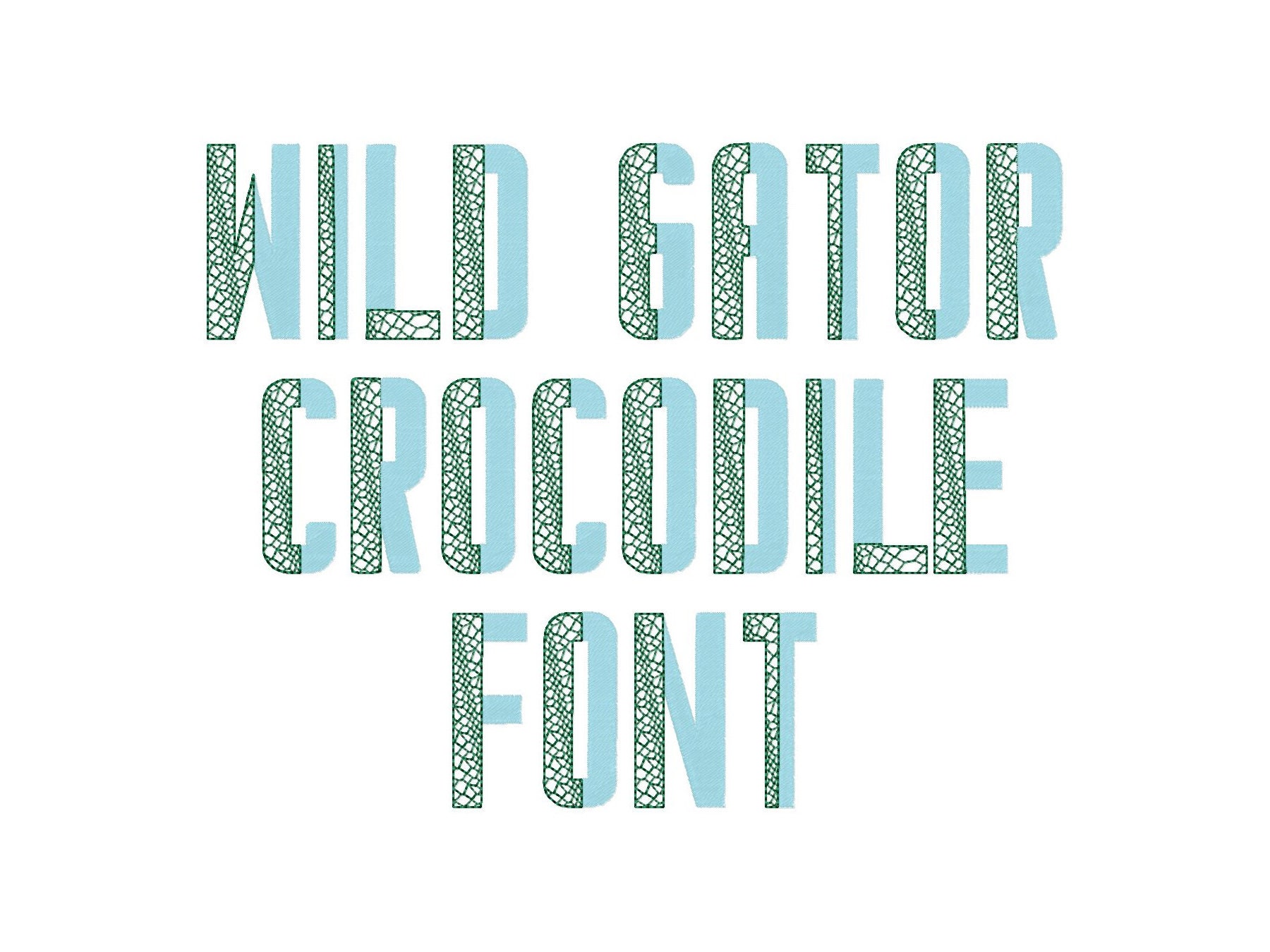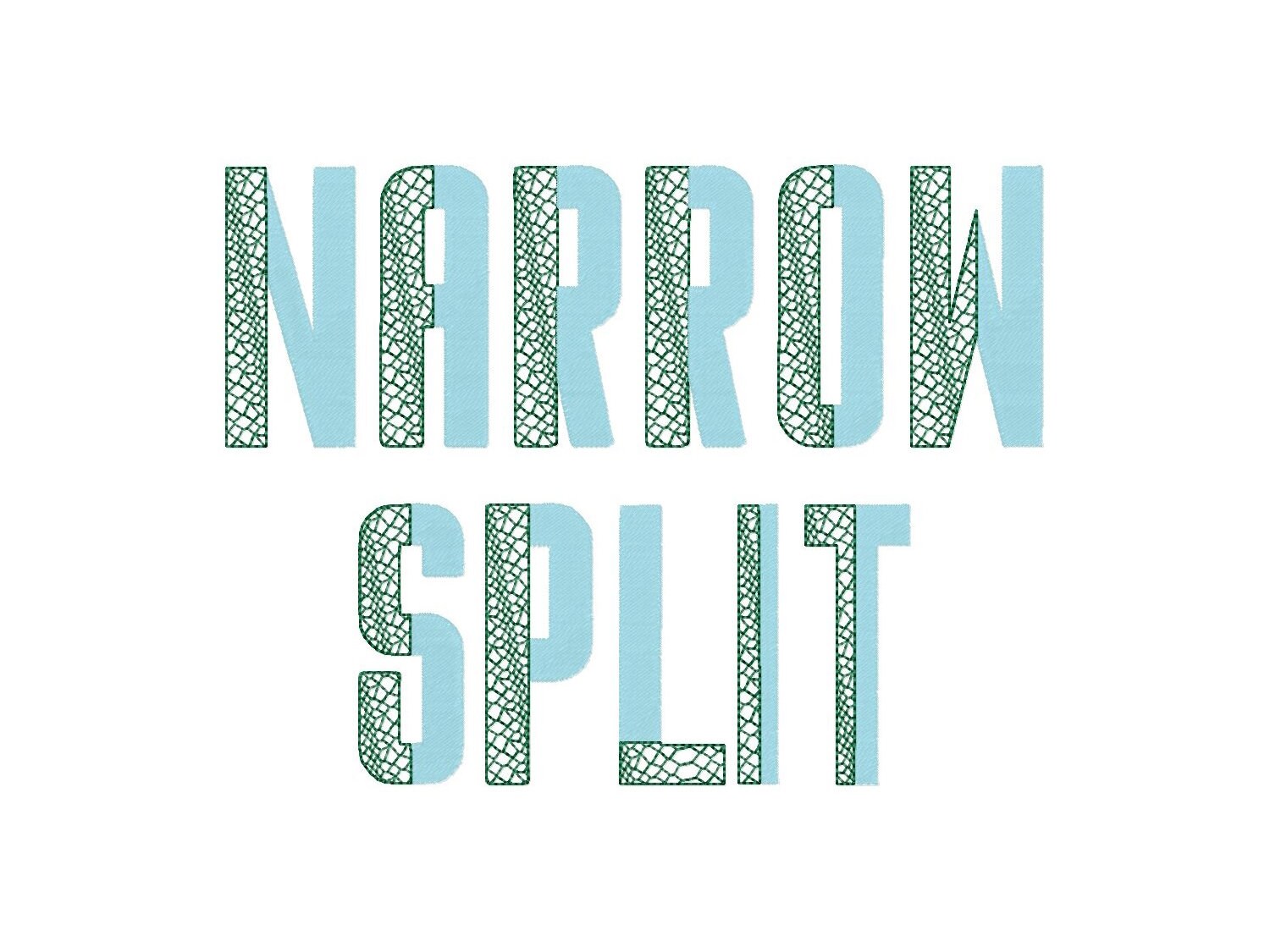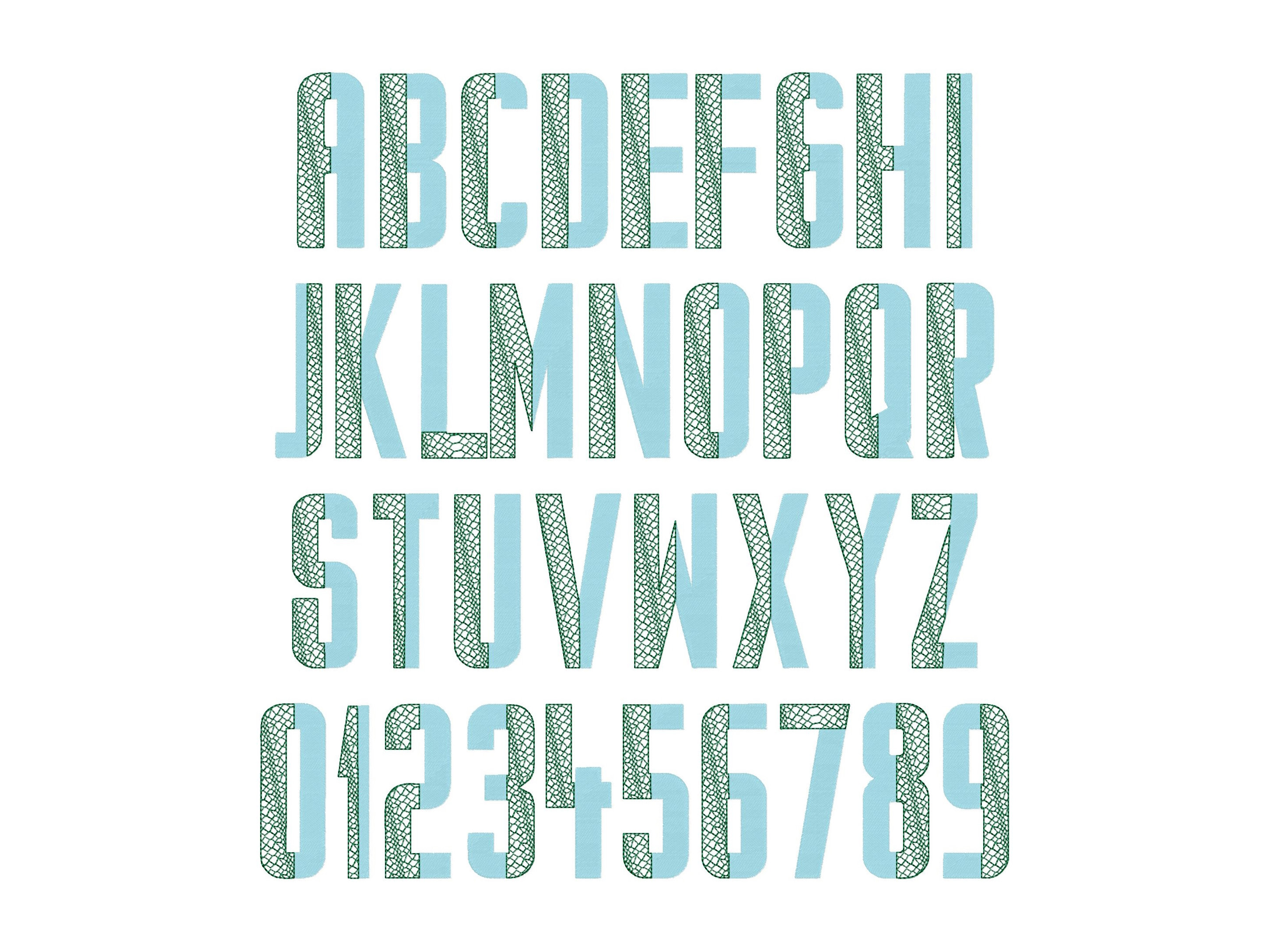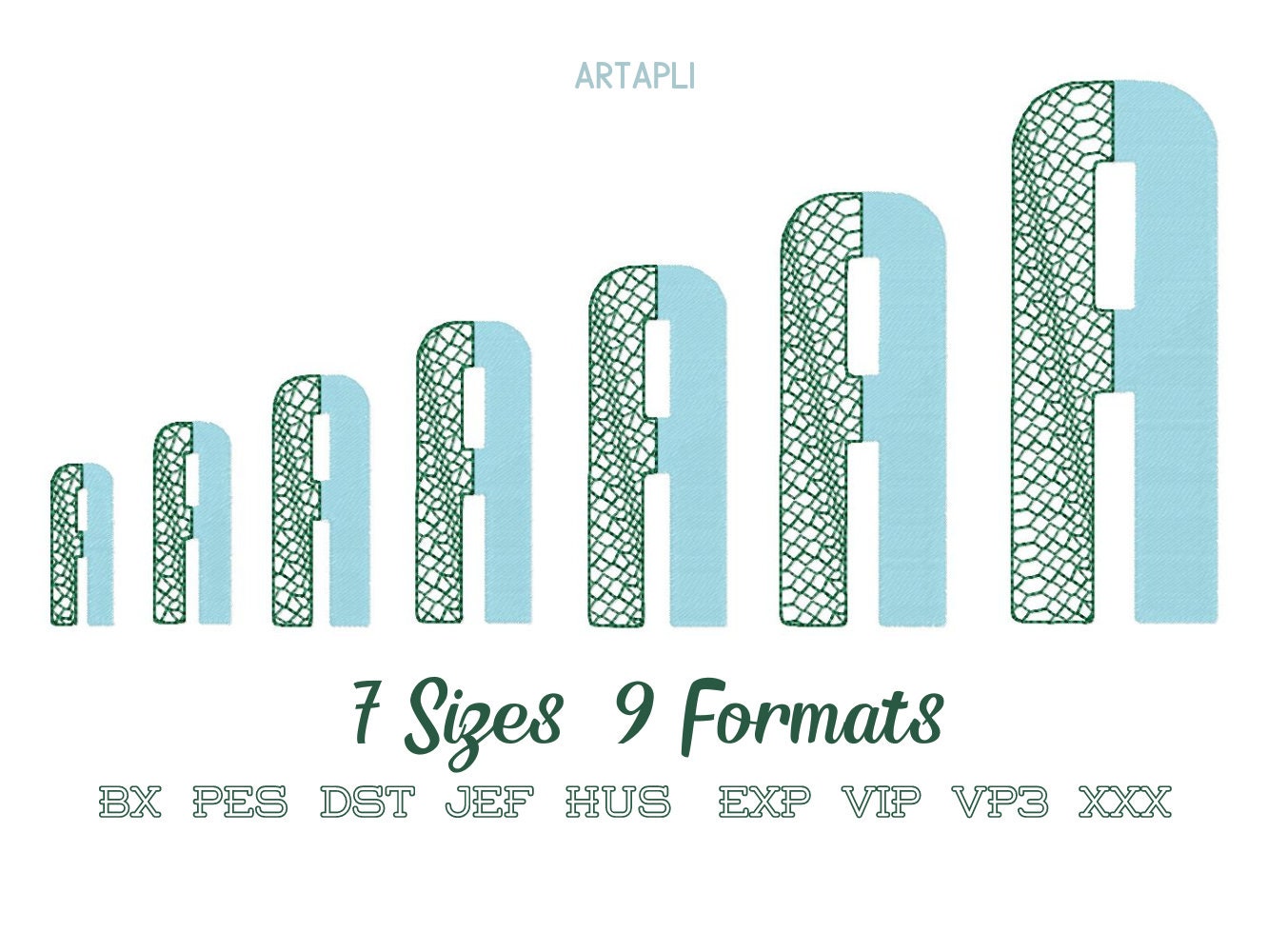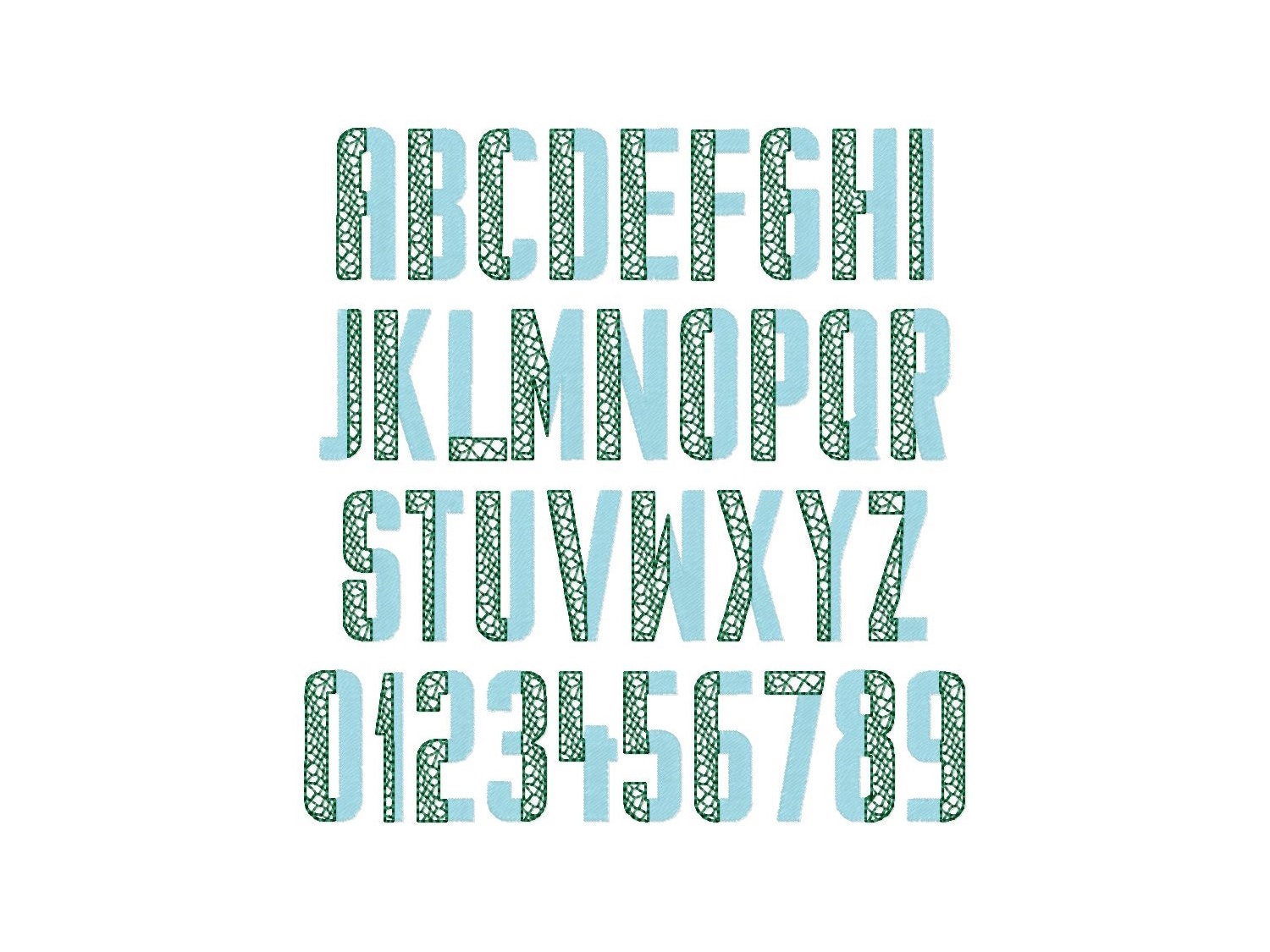
DUO Split Crocodile Gator 2 color Font TWO colors Font machine embroidery design DUOTONE small big block gator fill stitch alphabet monogram
Crocodile print is a part of the design. The background fabric looks through. Stunning effect!
The plain part of the letters is a fill stitch.